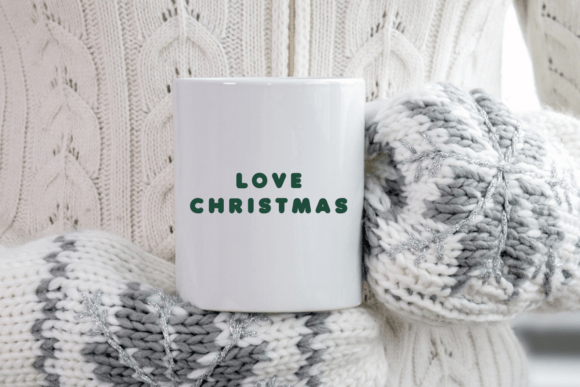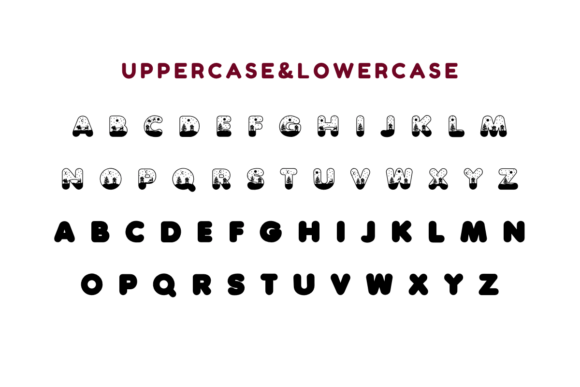
Introduction to Holy Xmas Font
As the snowflakes start to fall and the fireplace crackles, designers are in the mood to create something special for the holiday season. It’s that time of the year when we want to add a touch of magic to our designs, and the right font can make all the difference. Imagine a font that brings the winter wonderland to your cards, banners, and seasonal designs – a font that’s as festive as it is functional.
Meet the Holy Xmas Font, a high-quality design resource that’s perfect for adding a cozy, Christmas touch to your creative projects. With its transparent background and free download option, this font is a valuable addition to any designer’s toolkit.
Whether you’re a seasoned pro or a design student, the Holy Xmas Font is sure to inspire your next creative project. Its unique design and high-quality graphics make it an essential resource for anyone looking to add a little extra sparkle to their work.
Key Features of Holy Xmas Font
- High-quality design resource for creative projects, perfect for festive occasions.
- Includes a variety of font styles and designs, ideal for adding a touch of holiday cheer to your work.
- Unique and festive design, perfect for adding a touch of holiday magic to your creative project.
Honest Review: Holy Xmas Font
One of the standout features of this font is its high quality. The characters are well-designed and look great on a variety of backgrounds. I particularly like that the font has a transparent background, which makes it easy to use in creative projects where I need to layer elements.
- Perfect for creative projects, especially around the holiday season
- Not a large character set (may not be suitable for extensive text-based designs)
- Some characters may not display well in smaller sizes
Overall, I’m impressed with the Holy Xmas Font. It’s a great addition to any designer’s library, and I appreciate its simplicity and elegance. If you’re looking for a high-quality font for a creative project, this one is definitely worth checking out.
Tips for Getting the Most Out of Holy Xmas Font
For the best results, use the Holy Xmas Font on a transparent background to create a festive and eye-catching design. Experiment with different font sizes, colors, and styles to add depth and visual interest to your project.
The Holy Xmas Font is perfect for:
Christmas card designs
Holiday party invitations
Gift tags and wrapping paper
Seasonal social media graphics